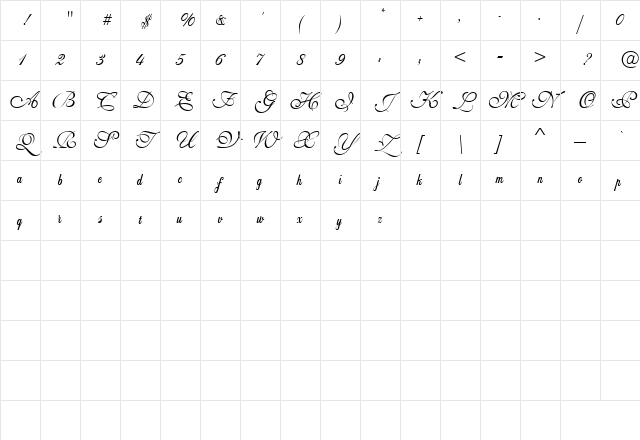
WeddingScript Bail Regular Free Font
WeddingScript Bail Regular
Design Context for WeddingScript Bail
WeddingScript Bail flows with the natural rhythm of handwritten lettering, making it ideal for designs that call for warmth and personal expression.
Font Pairing: Combine WeddingScript Bail with a simple geometric sans for maximum contrast - the tension between flowing curves and clean structure is a classic typographic pairing.
Pro Tip: Use WeddingScript Bail for short runs of text - names, titles, or taglines. Extended body copy in script faces tires the eye quickly.